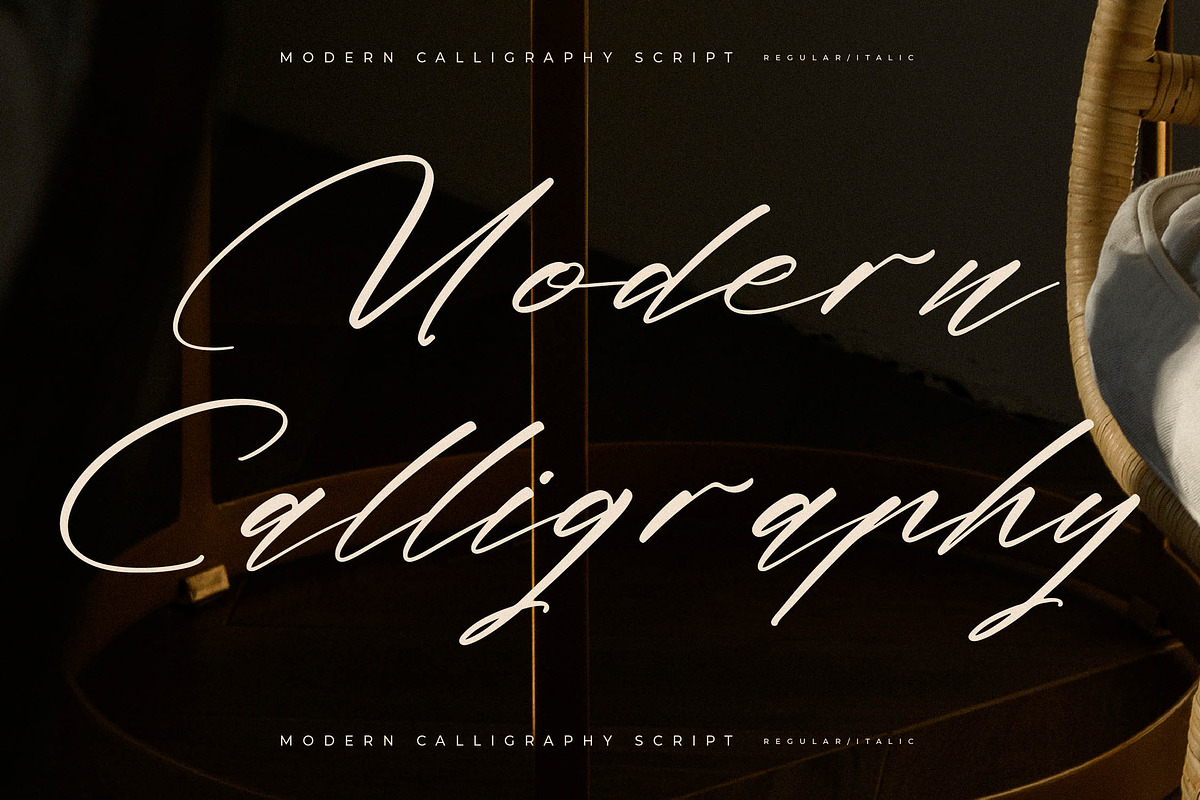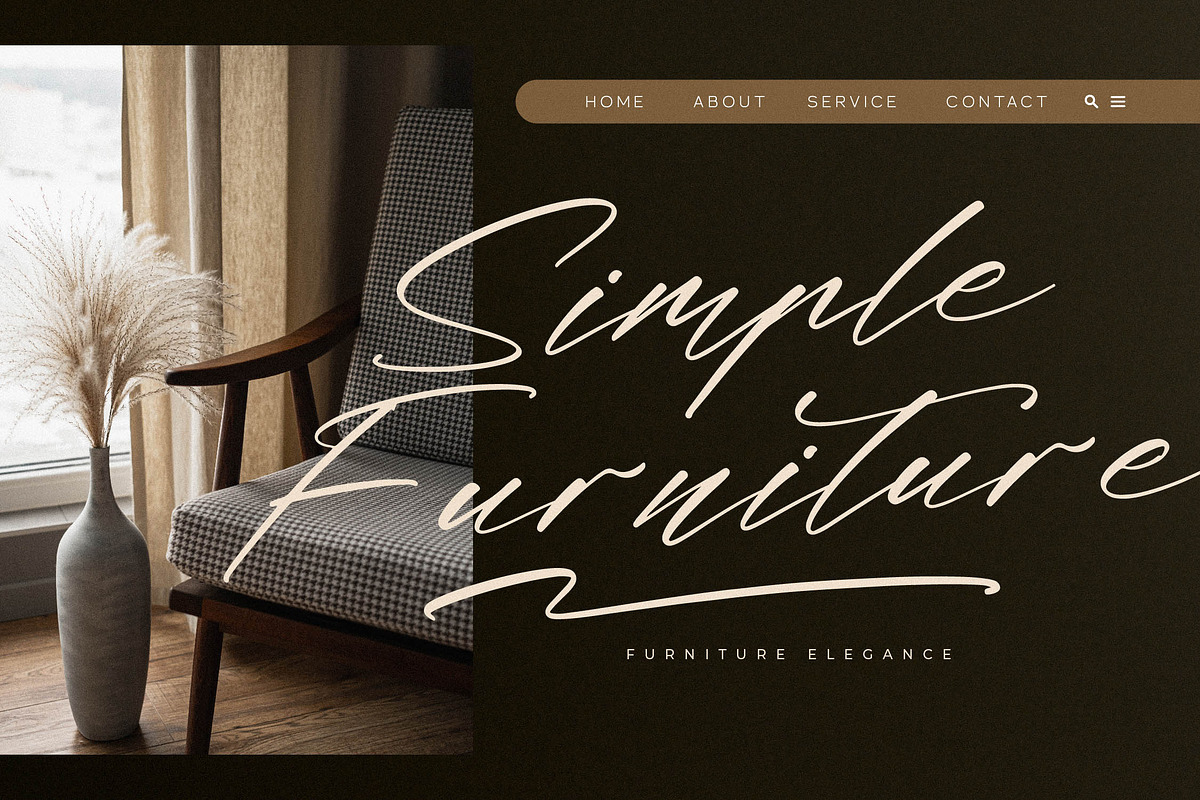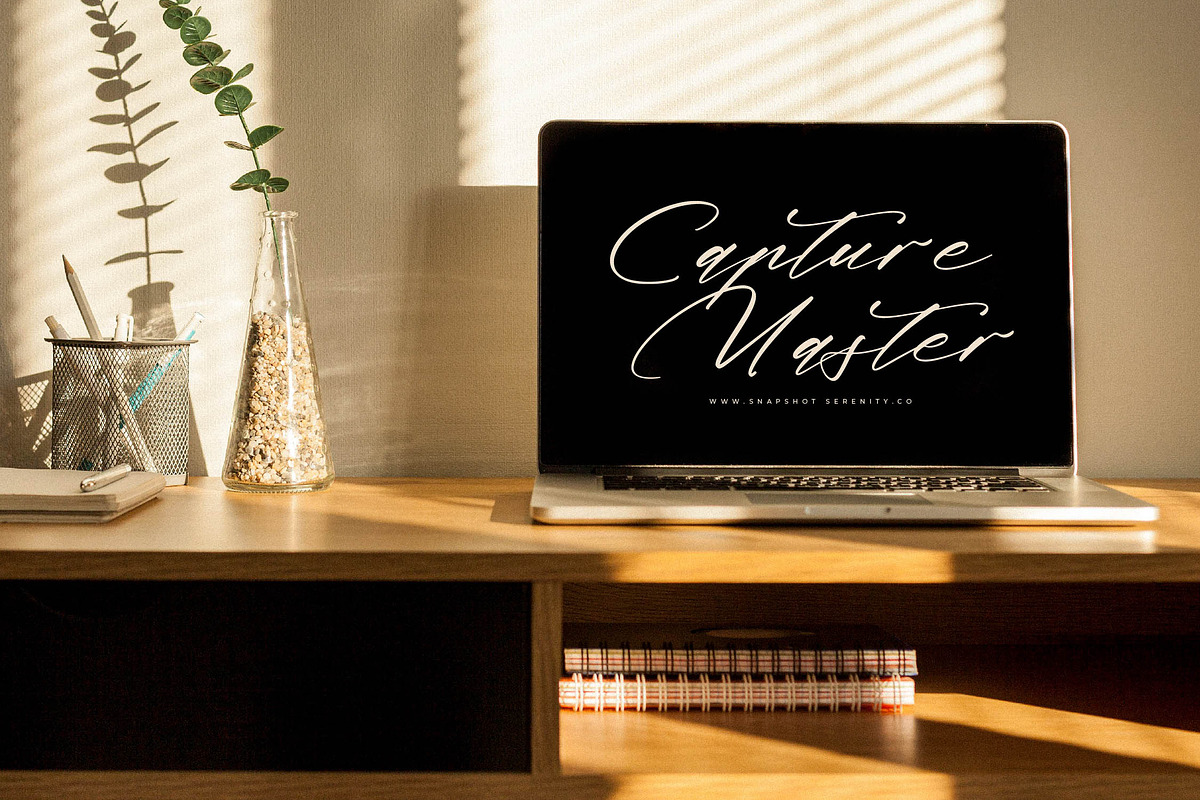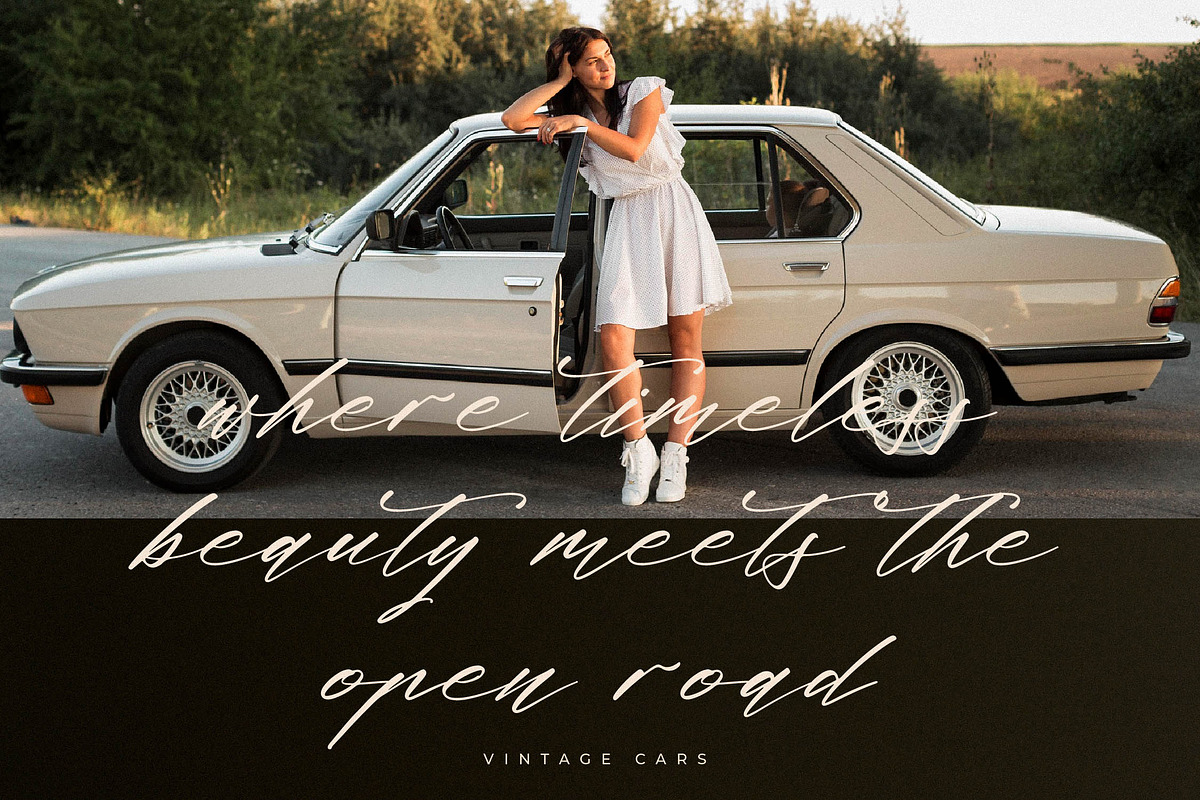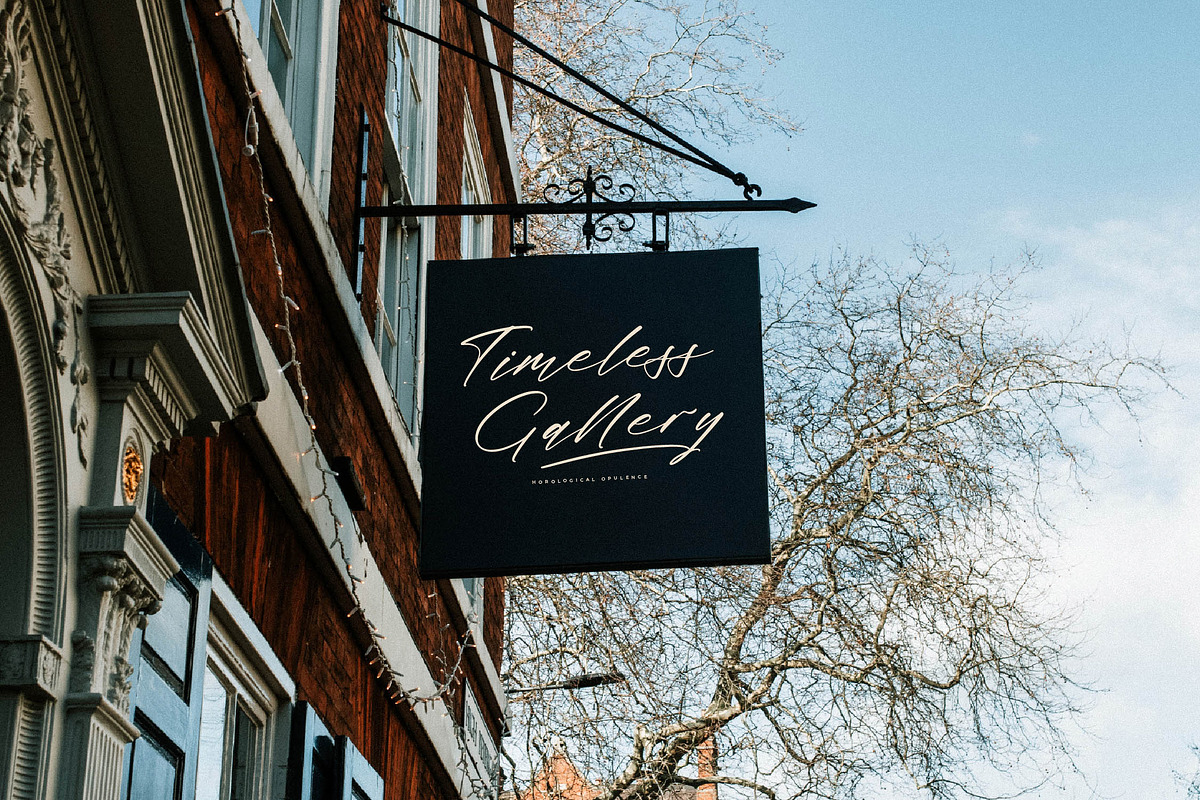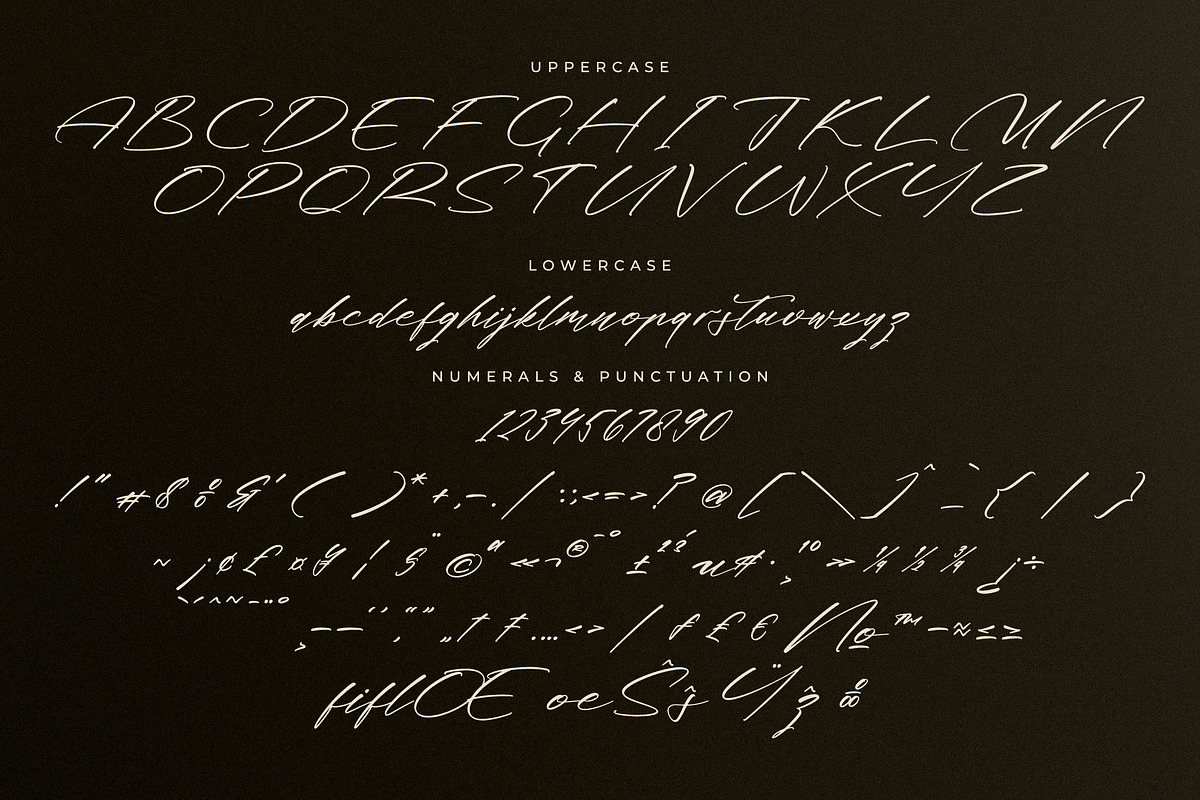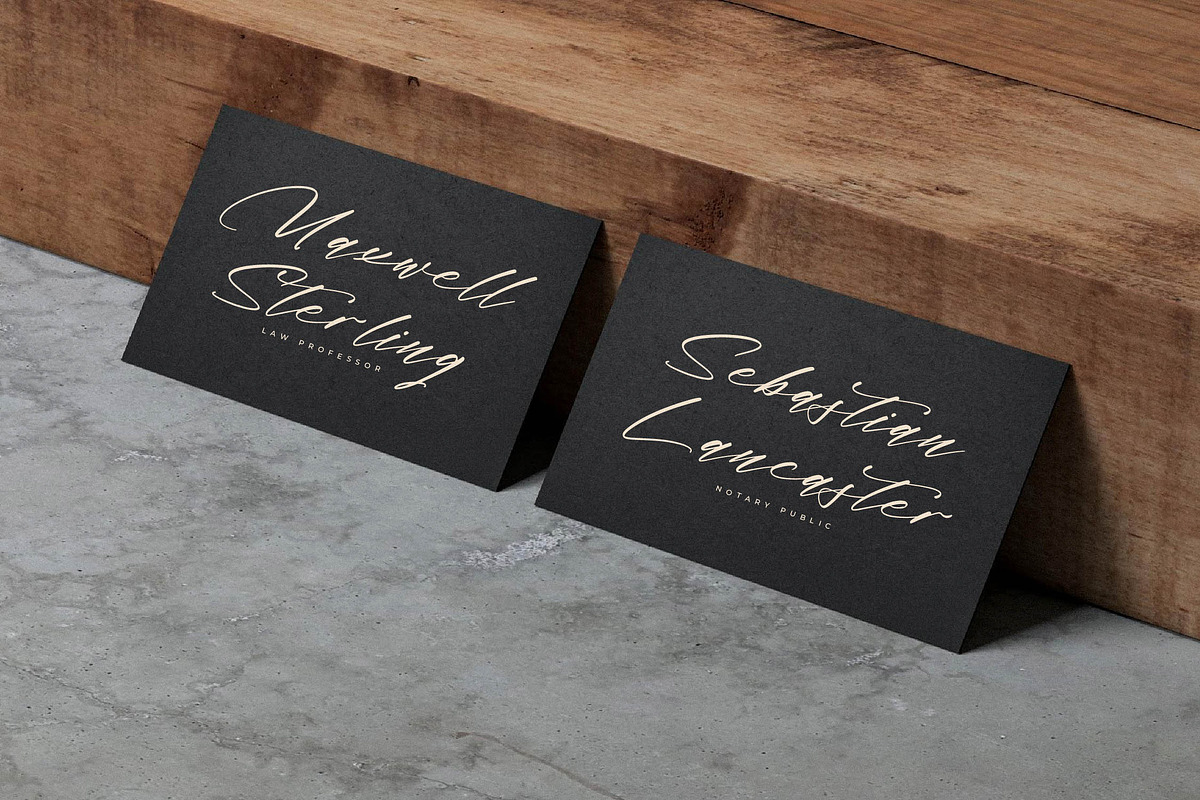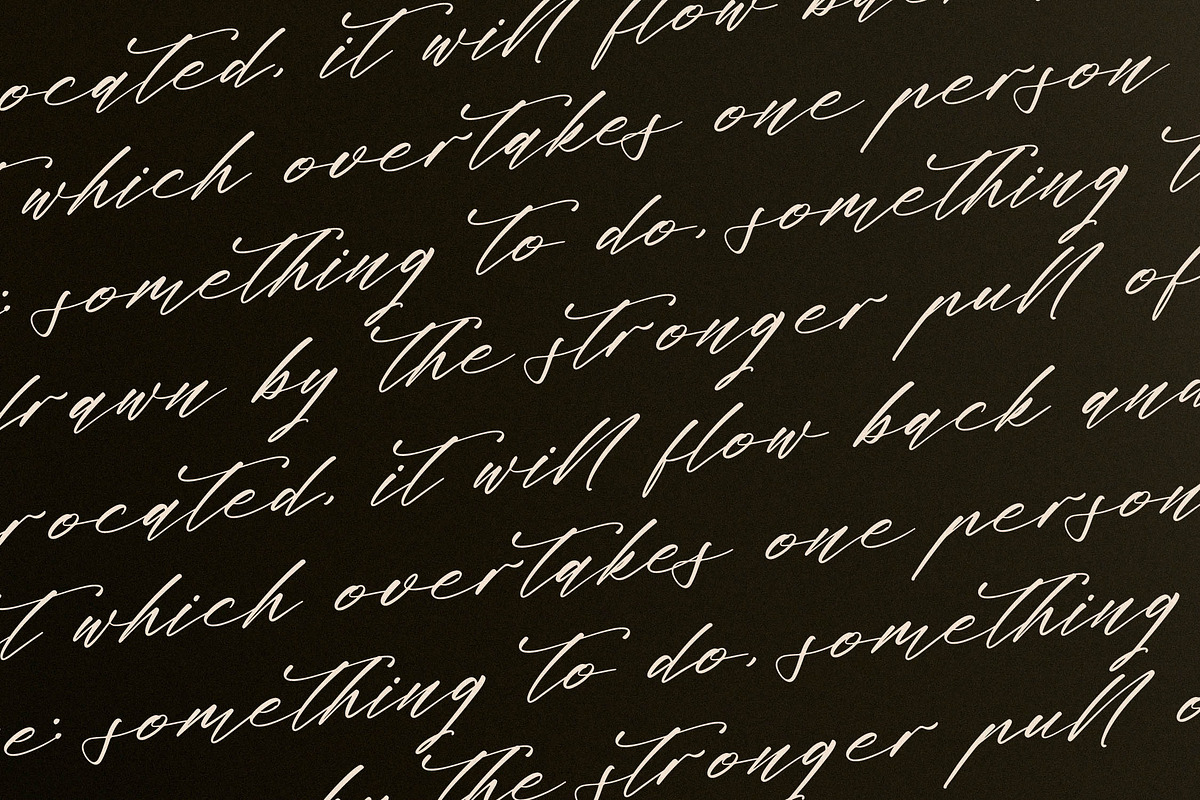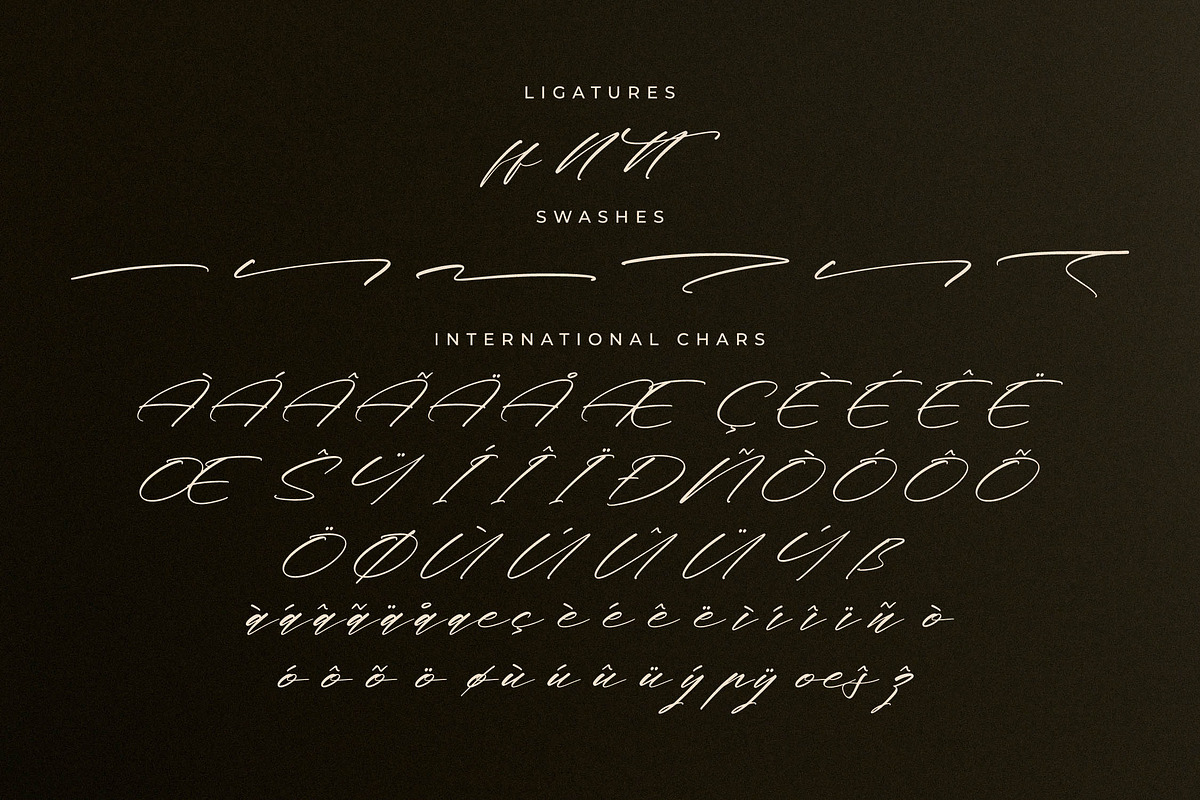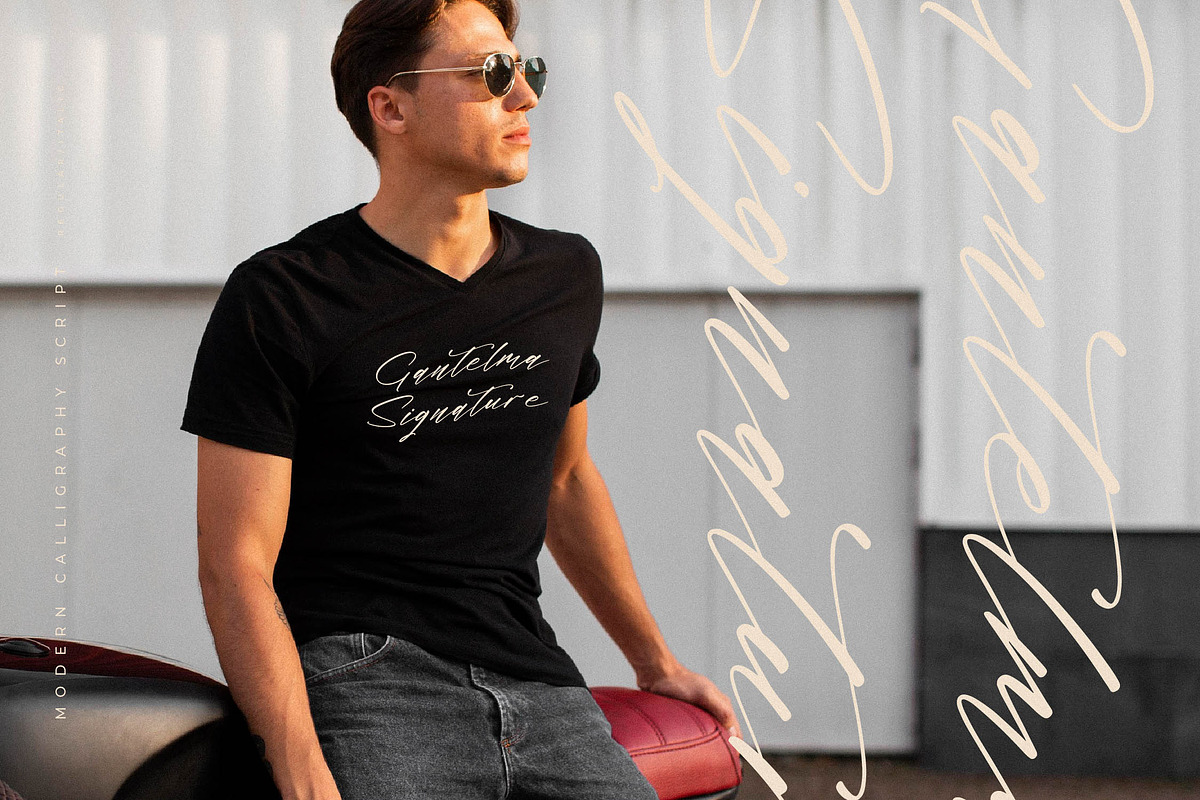
Midnight Realtime Modern Calligraphy
Midnight Realtime – Modern Calligraphy Script , from Letterena, is a Luxury Script font, suitable for any projects such as: logos, branding projects, homeware designs, product packaging, mugs, quotes, posters, shopping bags, t-shirts, book covers, name card, invitation cards, greeting cards, label, photography, watermark, special events, and all your other luxury and beautiful projects that need a Luxury serif taste.